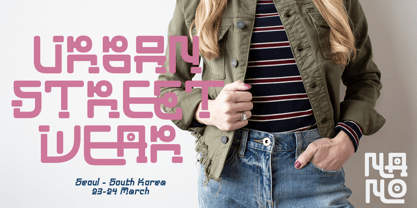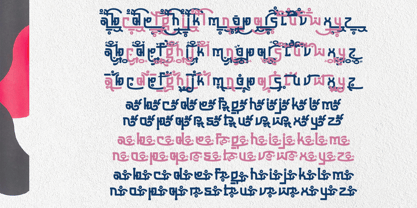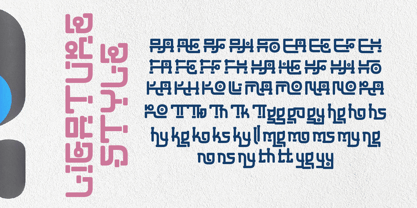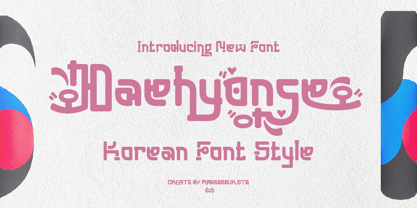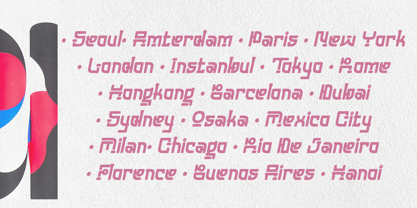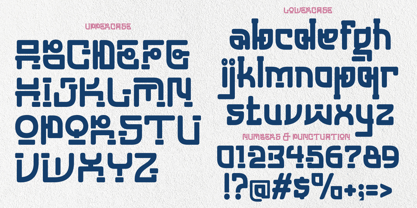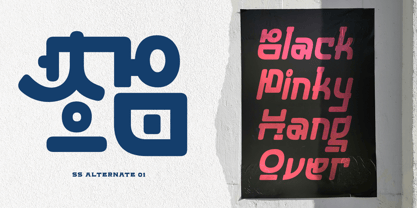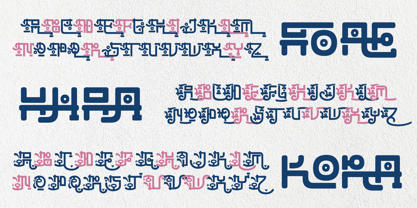
Daehyonse
by madeDeduk
The Daehyonse Font Family was designed by madededuk and published by madeDeduk. Daehyonse contains 2 styles and family package options. More about this family
Introducing Daehyonse, this font displays a unique Korean typographic style with a combination of geometric shapes and modern decorative elements. Its letterforms appear yet still feature smooth curves that create a dynamic and artistic impression. Small details such as dots, accents, and additional ornaments make the font look more lively while strengthening its modern and creative Korean aesthetic. In addition to its aesthetic appearance, the font also maintains good readability, making it suitable for various design purposes. Its characters convey a futuristic yet elegant feel, making it ideal for logos, posters, branding, content titles, and other Korean-themed creative designs. The combination of unique letter structures and decorative touches creates a strong, attractive, and memorable visual identity.
Designers: madededuk
Foundry: madeDeduk